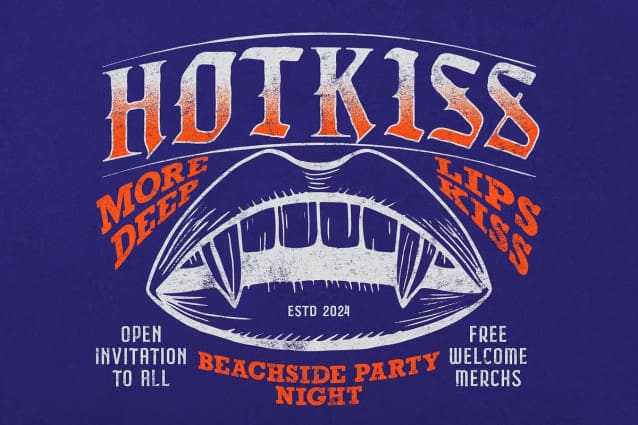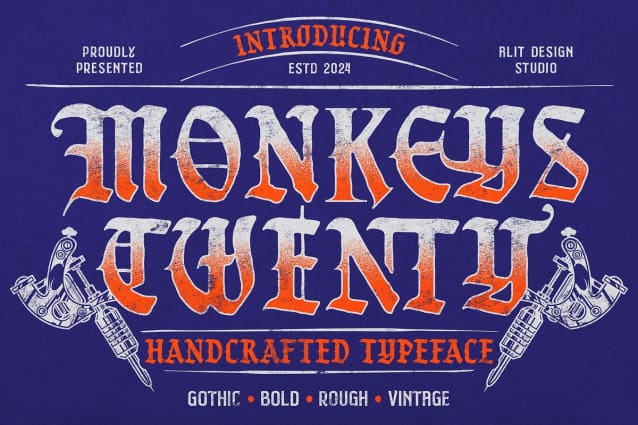
Monkeys Twenty Font
Monkeys Twenty Font is a unique and rugged typeface that combines the traditional elegance of Blackletter with the bold strength of a Serif font. The design has a distinctive, rough, stamp-like texture that gives it a vintage and hand-crafted feel. This font exudes a sense of old-world charm while maintaining a modern edge, making it perfect for designs that require a bold, yet sophisticated statement.